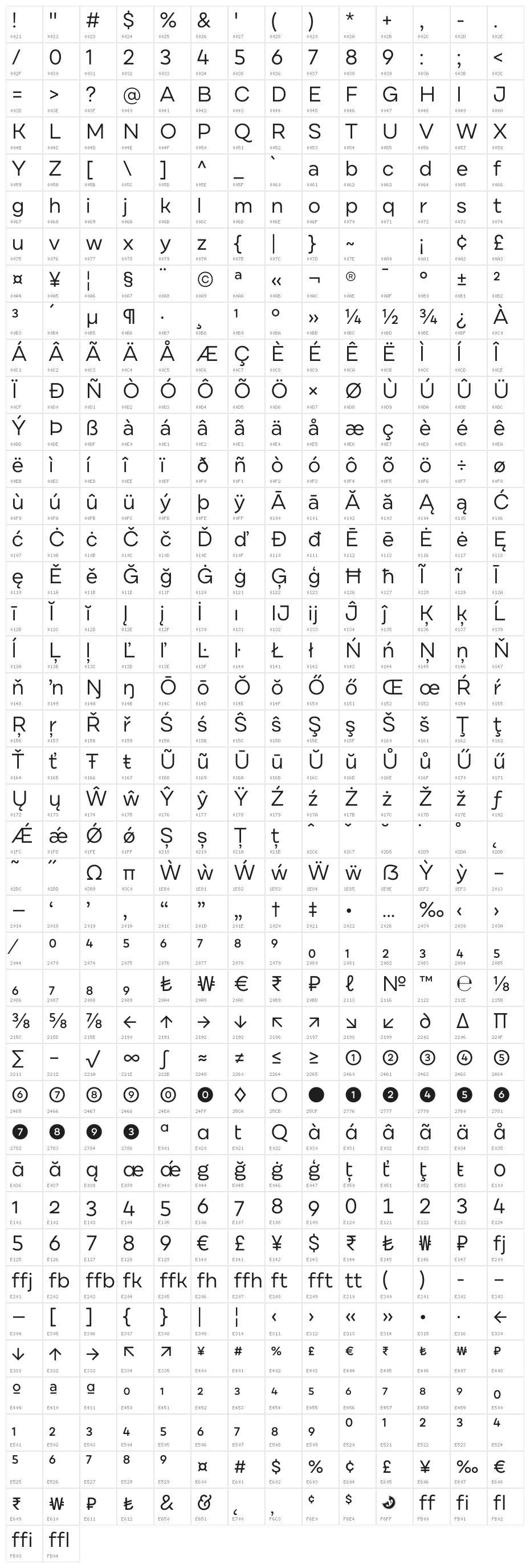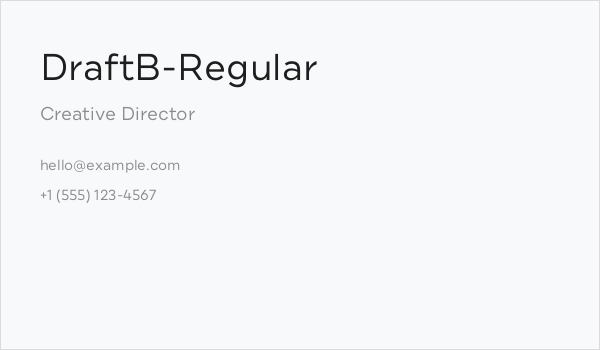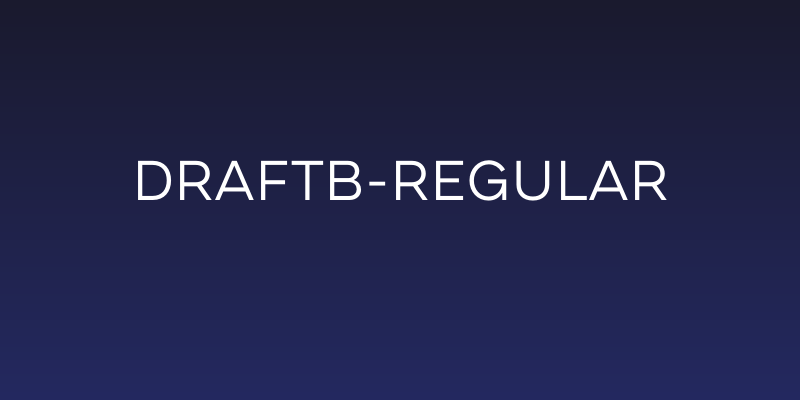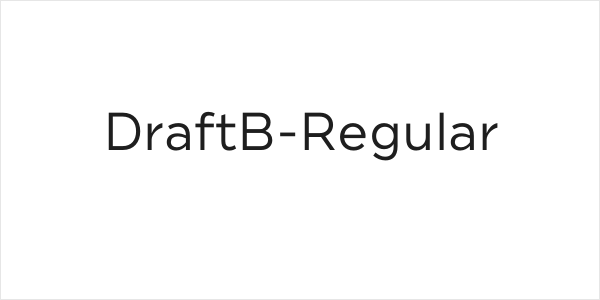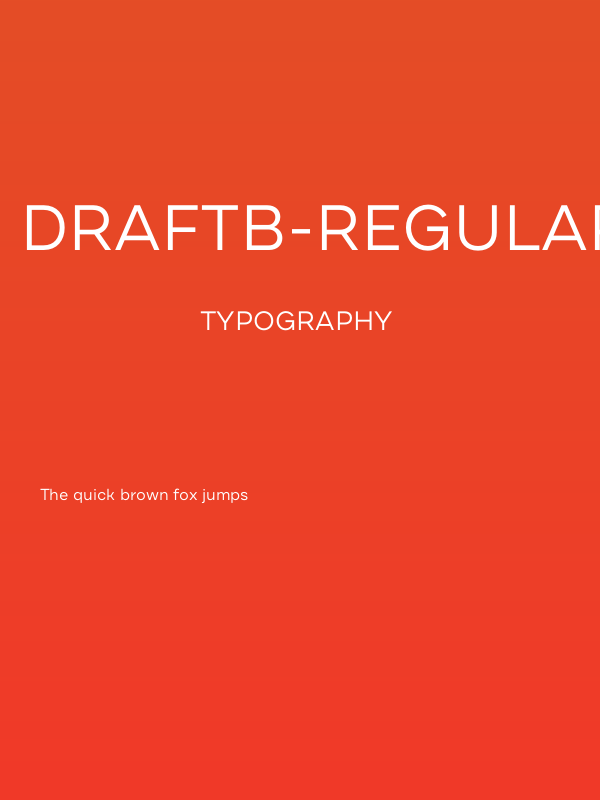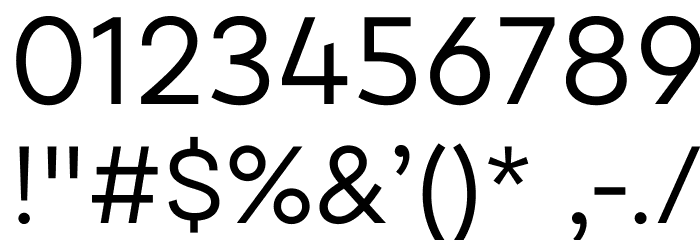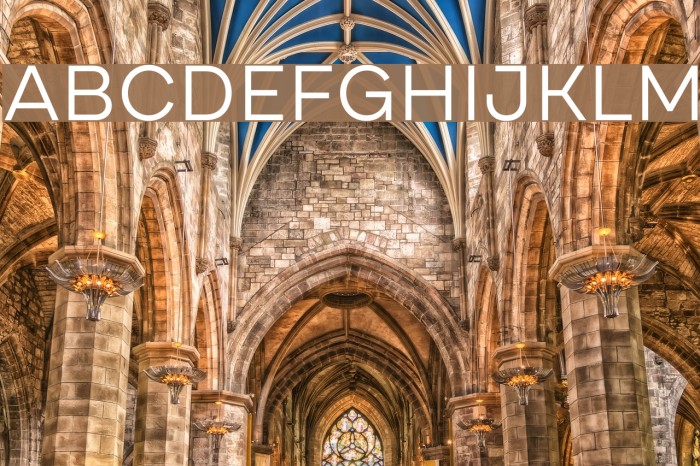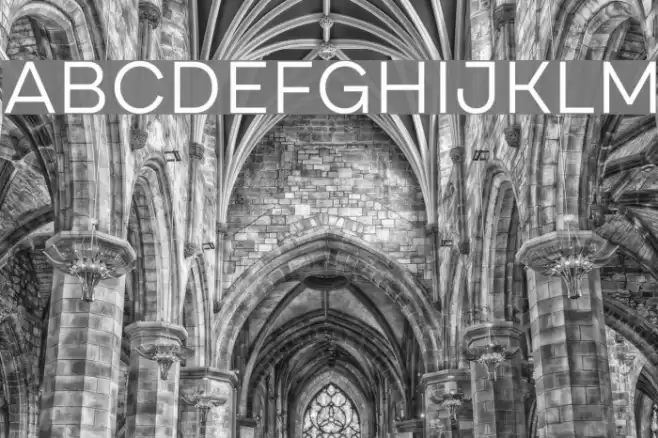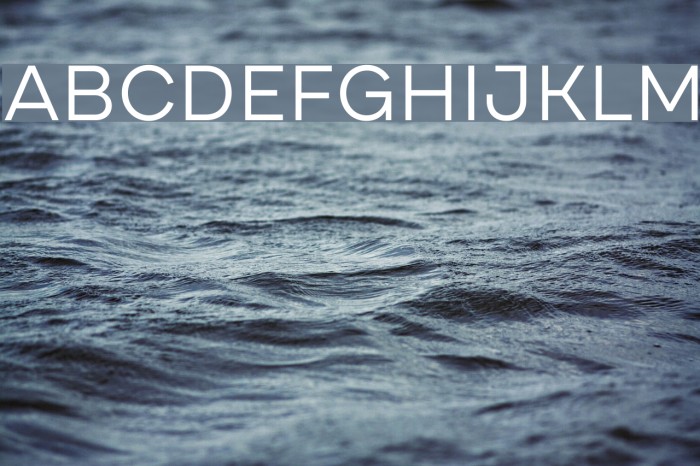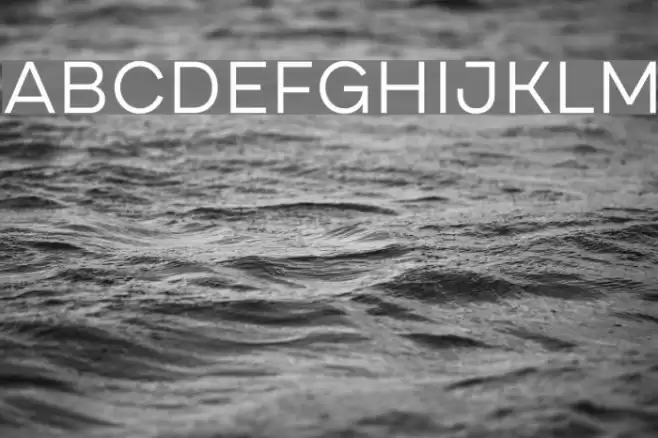
DraftB-Regular Font
This font features a clean and modern sans-serif design, characterized by its geometric shapes and uniform stroke widths. The uppercase letters are bold and assertive, while the lowercase letters maintain a consistent style that complements the uppercase. The numerals are clear and legible, making them suitable for various applications. Special characters are well-defined, ensuring versatility in design projects. The overall appearance is sleek and professional, ideal for contemporary branding and digital interfaces.
| Use Case | Headlines, Body text, Logos |
| Proposed Projects | Ideal for branding, digital interfaces, advertising, and editorial design. |